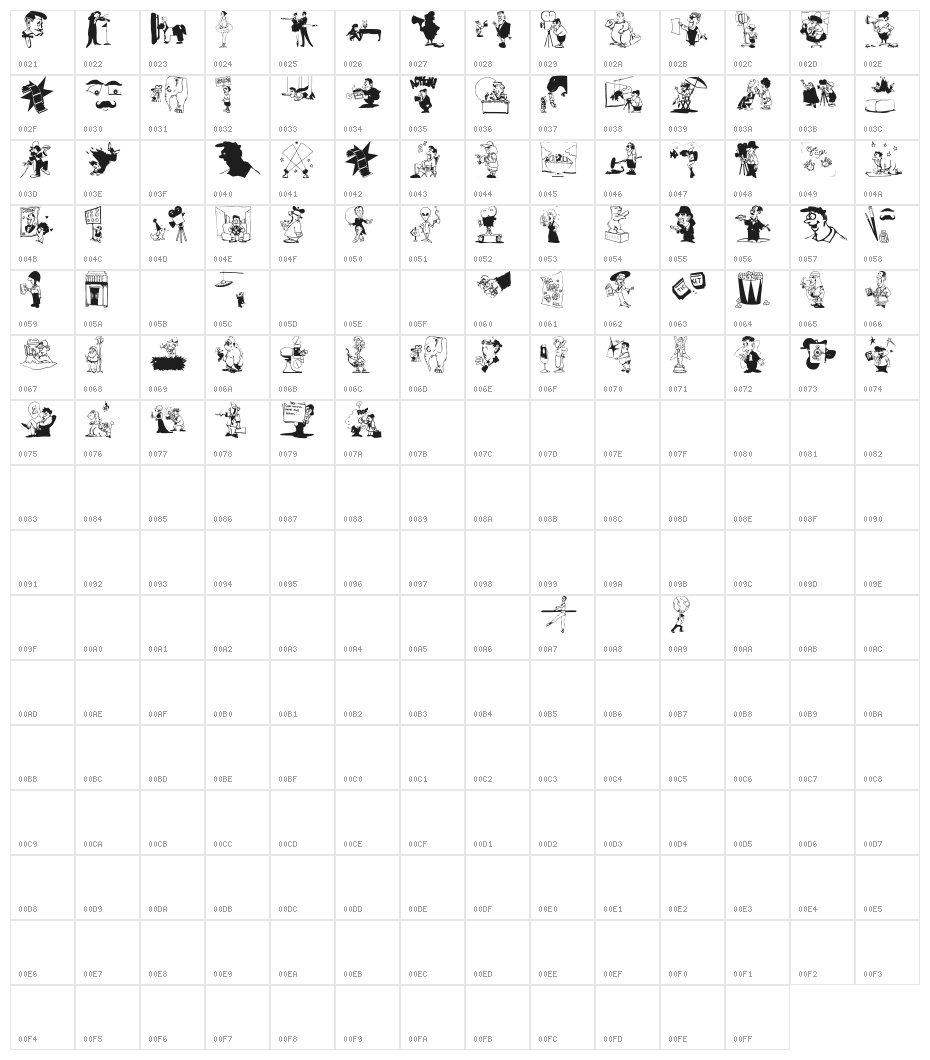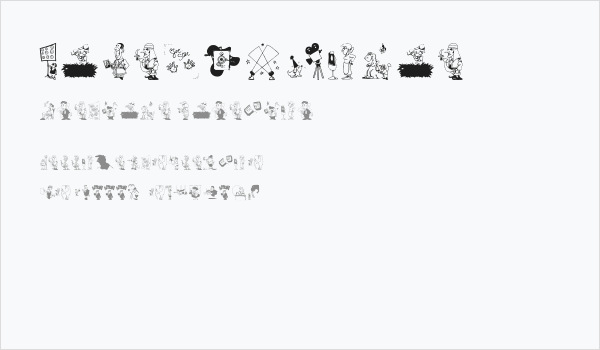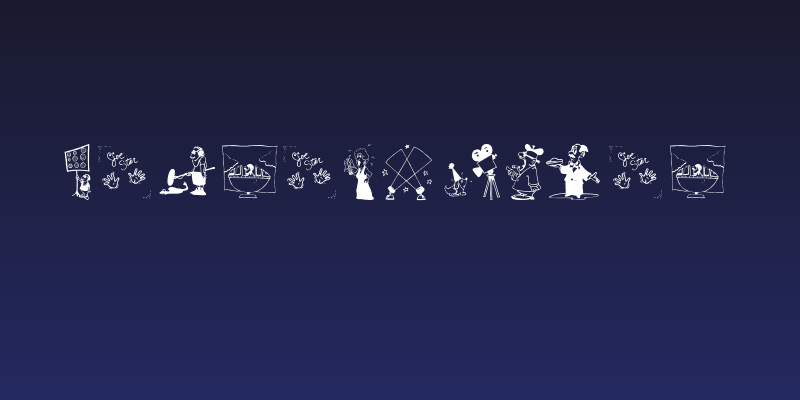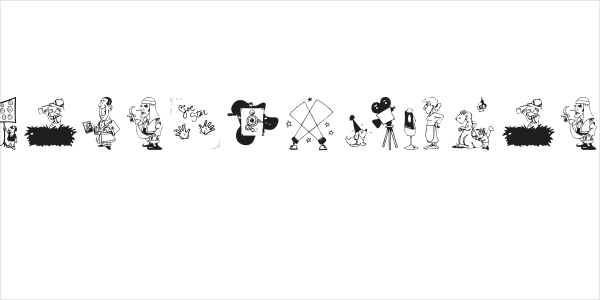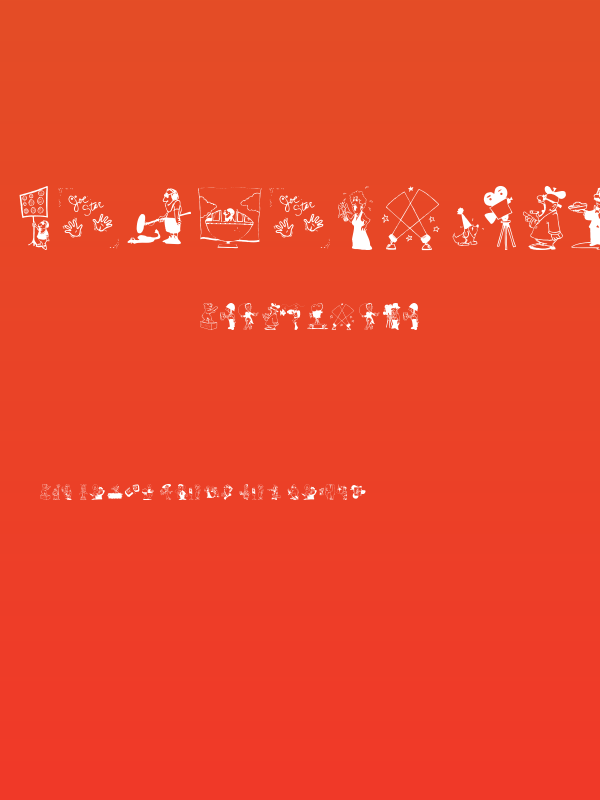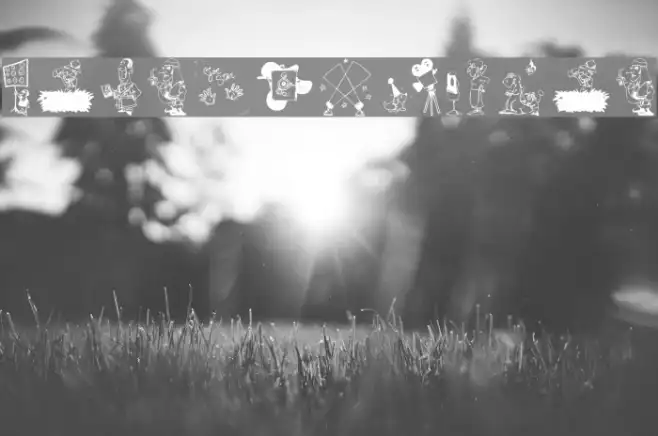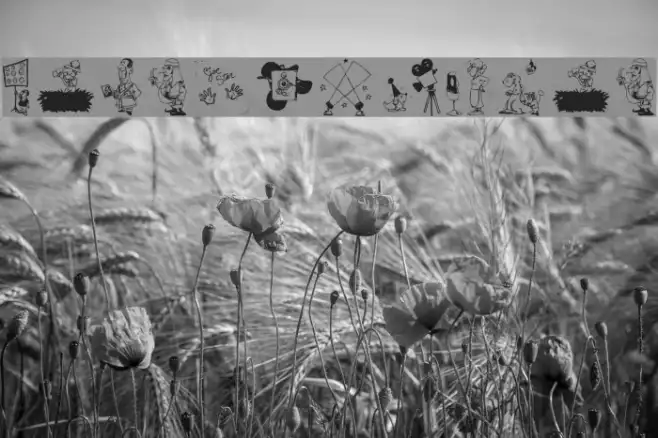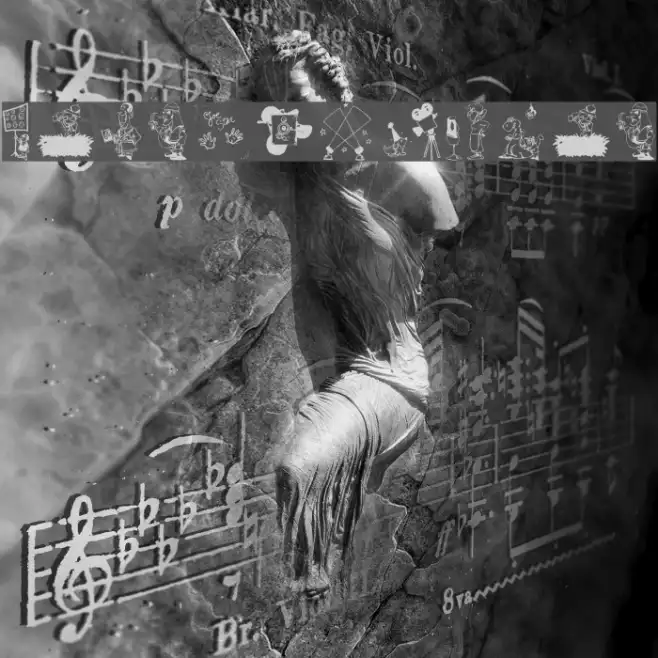
LifeIsAMovie Font
LifeIsAMovie Description
| Overall Style | Decorative, Playful, Thematic |
| Use Case | Headlines, Posters, Logos, Themed Graphics |
| Proposed Projects | Film festival posters, children's movie promotions, playful event invitations, entertainment branding, themed party materials. |